What Is a Serif Font?
Serif fonts are among the oldest and most influential typefaces in the history of typography. Recognizable by the small decorative strokes attached to the ends of letterforms, serif fonts have been used for centuries in books, newspapers, magazines, branding, packaging, advertising, and digital publishing.
Although modern sans serif fonts dominate many websites and user interfaces, serif fonts continue to play a critical role in graphic design. They are often associated with tradition, credibility, elegance, sophistication, and readability. Understanding what serif fonts are, how they evolved, and when to use them can help designers make better typographic decisions across both print and digital projects.
What Is a Serif Font?
A serif font is a typeface that features small finishing strokes, known as serifs, at the ends of letters.
For example, letters such as “T,” “N,” “E,” and “H” often include subtle horizontal or angled extensions that distinguish serif typefaces from sans serif designs.
The word “serif” itself refers to these finishing details. Fonts without them are known as sans serif fonts, with “sans” meaning “without” in French.
A simple comparison:
- Serif font: Times New Roman, Garamond, Baskerville
- Sans serif font: Helvetica, Arial, Inter, Roboto
These small details may seem minor, but they significantly influence how a typeface feels and performs in different design contexts.
The History of Serif Fonts
The origins of serif typography can be traced back to ancient Roman inscriptions.
Stone carvers often added slight flares and finishing strokes to letters as they chiseled text into monuments. These details eventually became characteristic features of Roman letterforms and later inspired early type designers.
When Johannes Gutenberg introduced movable type printing in the fifteenth century, typography evolved rapidly. Early typefaces were influenced by handwritten manuscripts and classical Roman inscriptions, establishing many of the serif traditions still visible today.
Over the following centuries, serif typography became the dominant style for printed books, newspapers, official documents, and academic publishing.
Many of the world’s most famous typefaces—including Garamond, Caslon, Baskerville, Bodoni, and Didot—emerged during this period and continue to influence modern typography.
Why Do Serif Fonts Have Serifs?
Typographers and historians have proposed several explanations for the existence of serifs.
One theory suggests that serifs originated naturally during stone carving, where finishing strokes appeared as a byproduct of chisel techniques.
Another theory argues that serifs help guide the eye along lines of text, creating smoother reading experiences in long-form content.
Regardless of their exact origin, serifs eventually became an intentional design feature used to improve aesthetics, readability, and visual rhythm.
Today, serifs serve both functional and stylistic purposes.
Characteristics of Serif Fonts
Serif fonts often share several recognizable characteristics:
Decorative End Strokes
The defining feature of serif typefaces is the presence of small strokes attached to letter endings.
Traditional Appearance
Many serif fonts communicate history, authority, professionalism, and trust.
Strong Reading Rhythm
Serif letterforms often create clear word shapes that help readers distinguish text patterns.
Contrast in Stroke Thickness
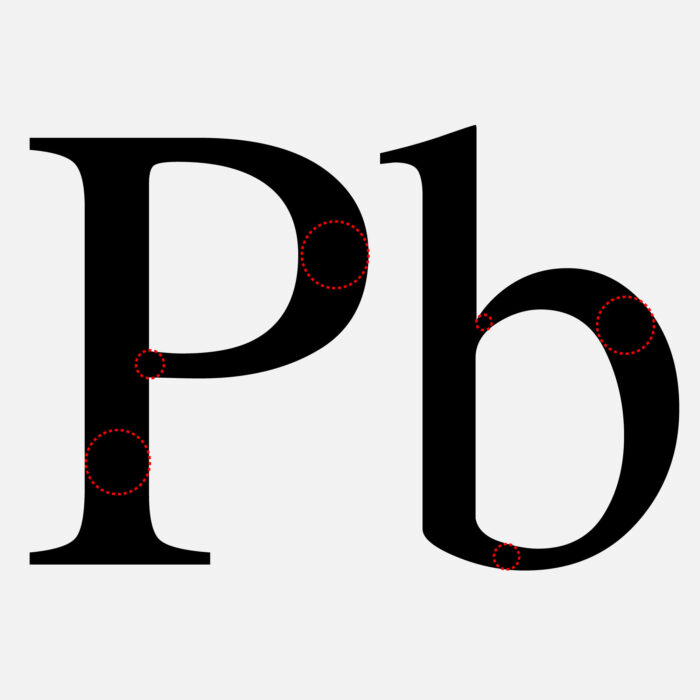
Many serif fonts feature noticeable variation between thick and thin strokes, particularly in transitional and modern serif styles.
Formal Personality
Compared to many sans serif fonts, serif fonts often feel more refined, academic, or editorial.
Main Types of Serif Fonts
Not all serif fonts look the same. Typography experts generally classify serif fonts into several major categories.
Old Style Serif Fonts
Old Style serifs emerged during the Renaissance and were inspired by handwritten calligraphy.
Characteristics include:
- Low contrast between thick and thin strokes
- Angled stress
- Soft, organic appearance
- Excellent readability
Popular examples:
- Garamond
- Caslon
- Palatino
- Bembo
Old Style fonts are often used in books, editorial design, and luxury branding.
Transitional Serif Fonts
Transitional typefaces bridge the gap between Old Style and Modern serif designs.
Characteristics include:
- Greater contrast between thick and thin strokes
- More vertical stress
- Sharper details
- Refined appearance
Popular Serif Font Examples
These fonts are widely used in publishing, education, and professional documents.
Modern Serif Fonts
Modern serifs, sometimes called Didone typefaces, feature dramatic visual contrast.
Characteristics include:
- Extremely thin hairlines
- Strong vertical emphasis
Whether you are creating a publishing platform, a fashion brand, a packaging system, or a personal portfolio, serif typography remains one of the most versatile and influential categories in the designer’s toolkit.